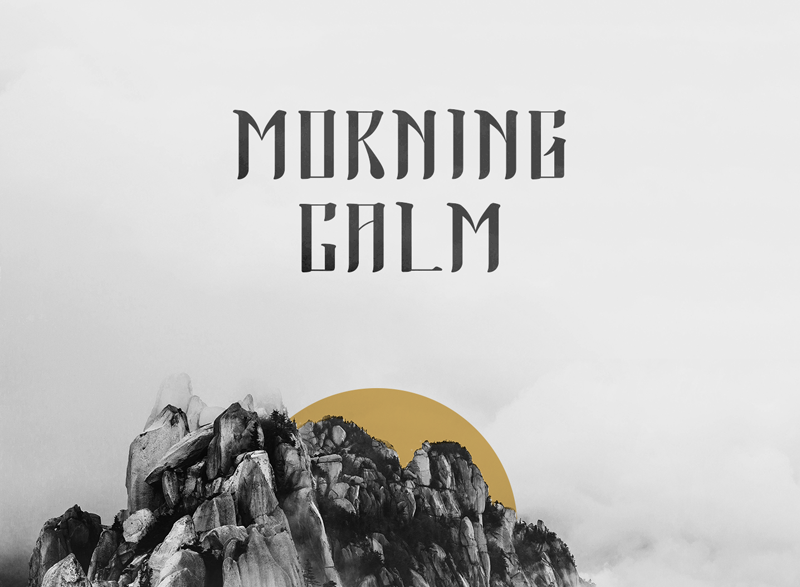
Font name: | Morning Calm |
Author: | Nils Germain |
Note by Nils Germain | |
Morning Calm is a free post modern latin font inspired by post modern korean typefaces and by korean traditional calligraphy. Its modern condensed structure coupled with the very organic brush stroke serifs make it unique and well suited for both headings and body text. Its name originates from the Jeoson dinasty which was called the Land of the Morning Calm in English.Morning Calm is a 3 month design process to find the right balance between traditional and modern typeface design, between Latin and Korean caligraphy and between decoration and readability. Made at kookmin university for my final project of our typography class. Special thanks to my teacher Euriae Kim. Font presentation: https://www.behance.net/gallery/53667915/Morning-Calm-Free-Font |